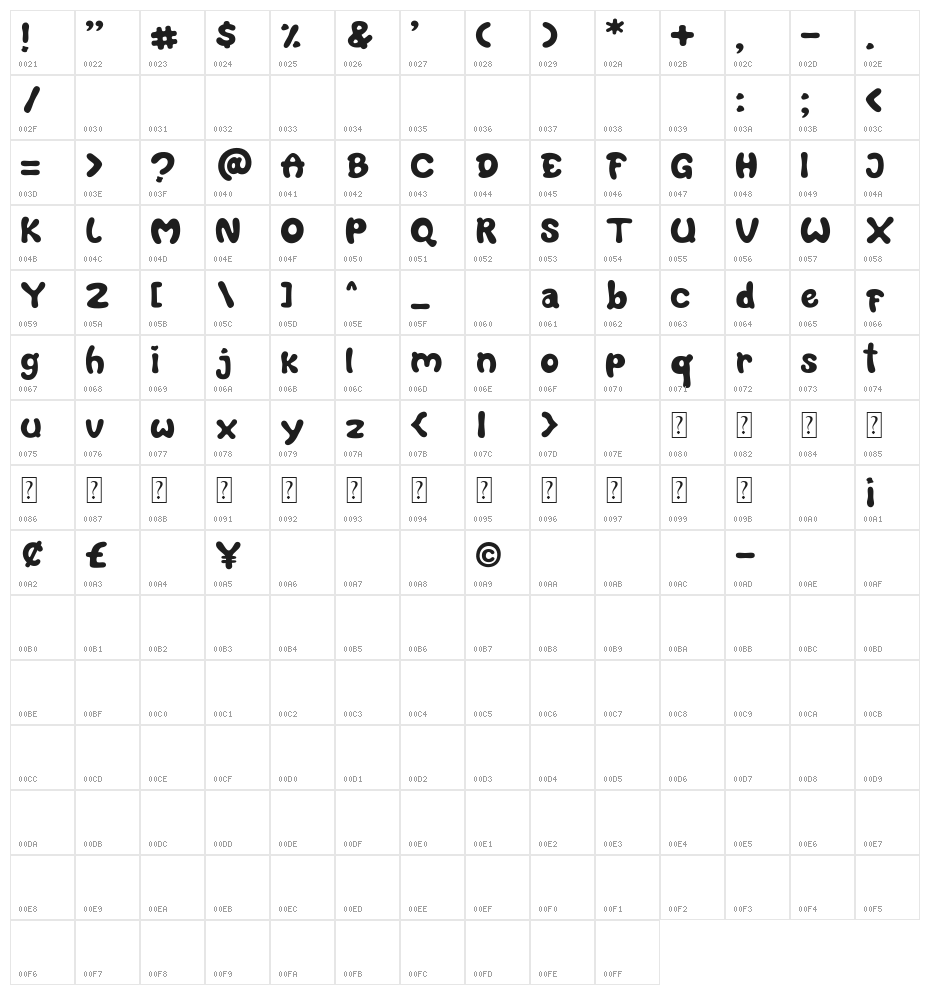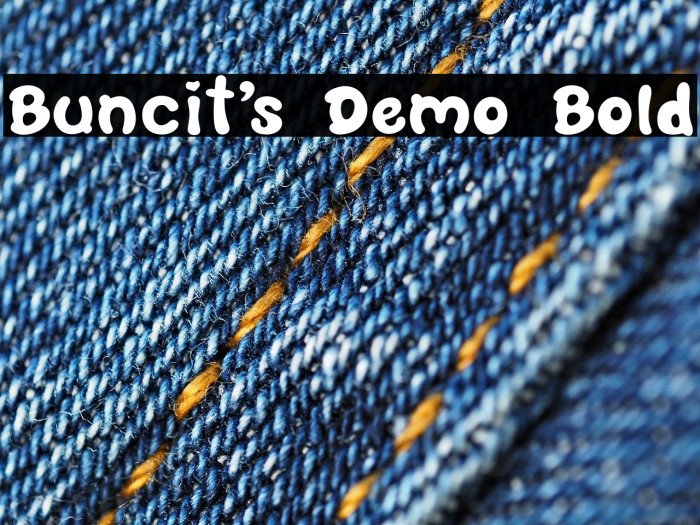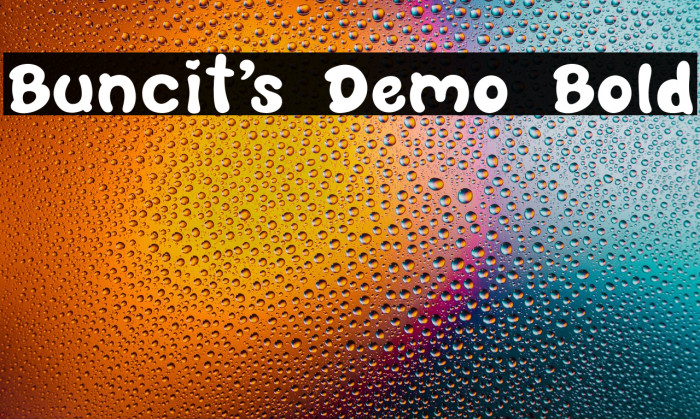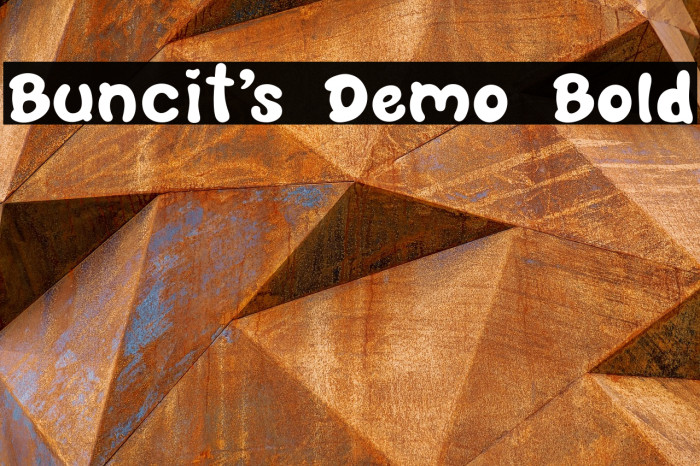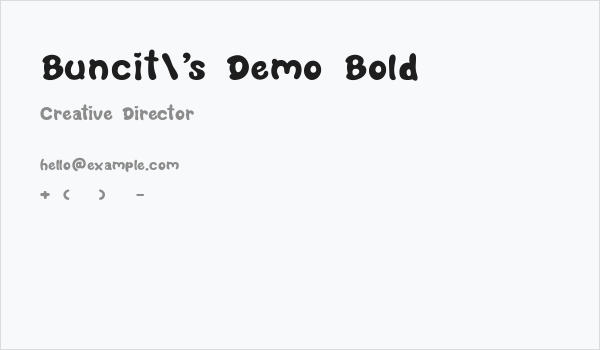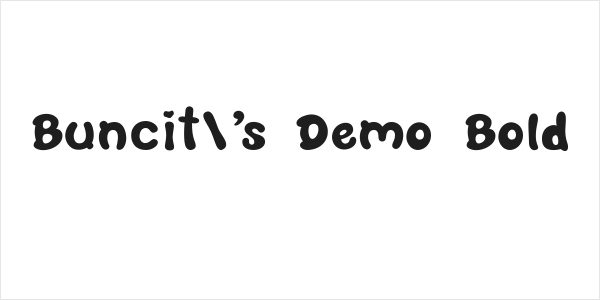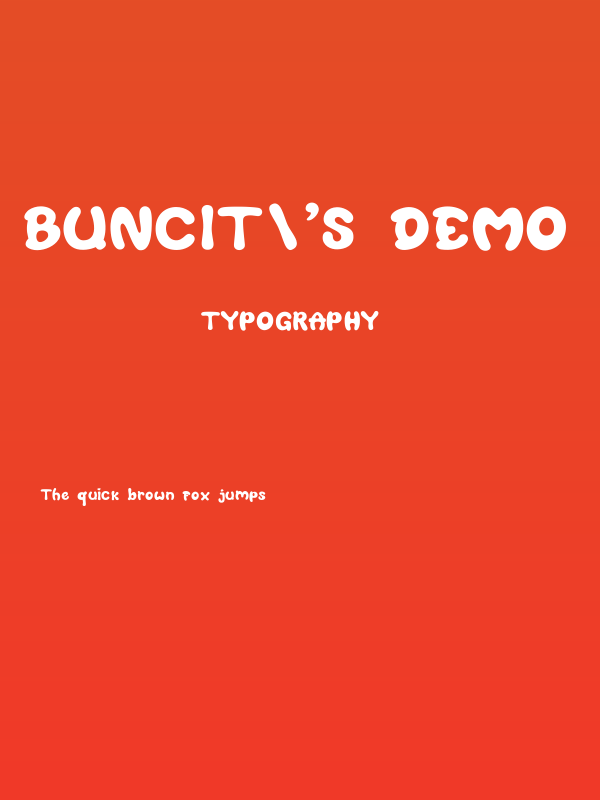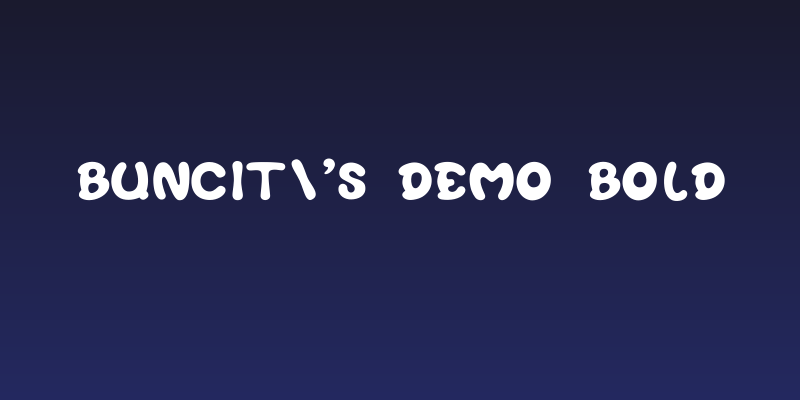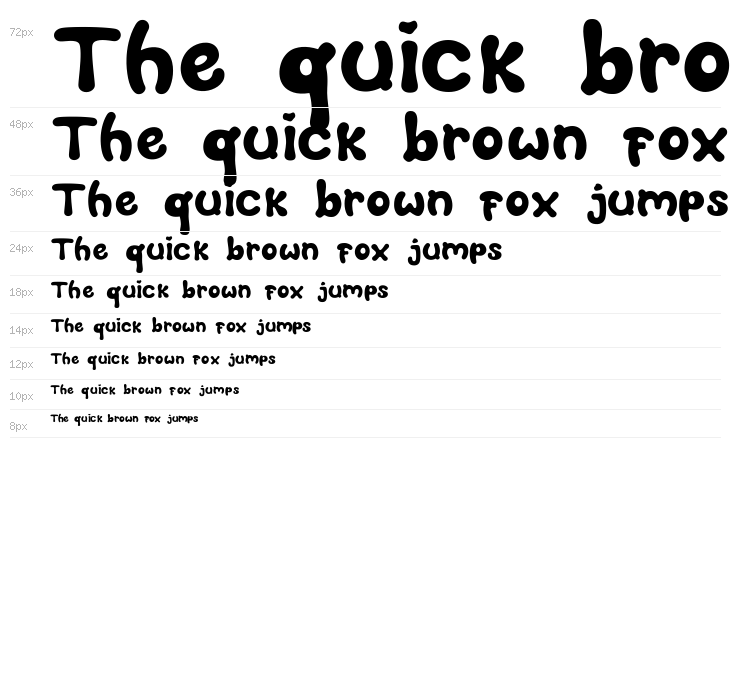
Buncit's Demo Bold Font
Buncit's Demo Bold Description
This playful and bold font features thick, rounded characters with a bubbly appearance. The letters have a consistent weight and a slightly irregular shape, giving them a whimsical and friendly feel. The font includes both uppercase and lowercase letters, as well as numbers and a variety of special characters. Its boldness and unique style make it stand out, while the rounded edges contribute to its approachable and fun aesthetic.